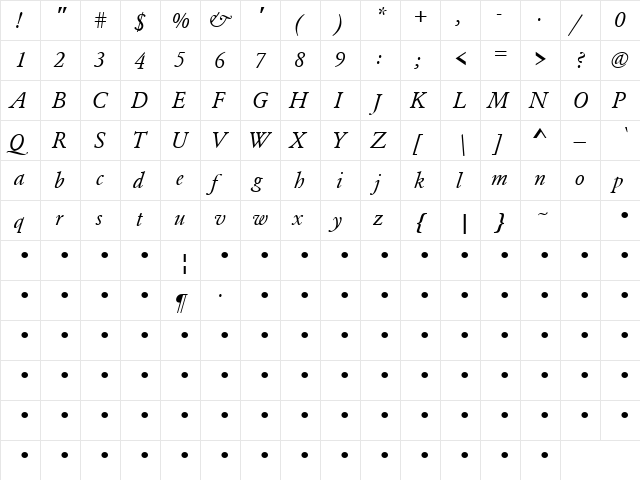
QTGaromand Italic
Design Context for QTGaromand Typeface
QTGaromand takes a measured approach to typography — its balanced proportions and neutral character make it a reliable workhorse for both digital and print work. The dynamic lean of this cut emphasises speed and emphasis in any layout.